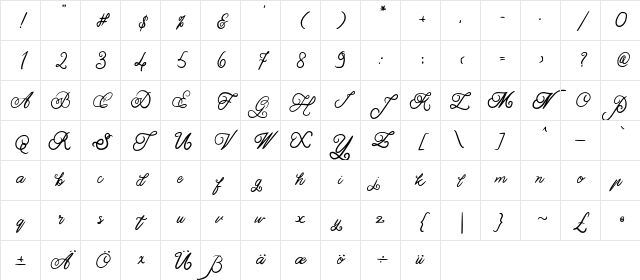
Adelia Regular
Foundry: Vunira Design
Designer: Vunira Design
Design Context for Adelia
Adelia is a composed and adaptable typeface that performs quietly and consistently across a wide range of design contexts.